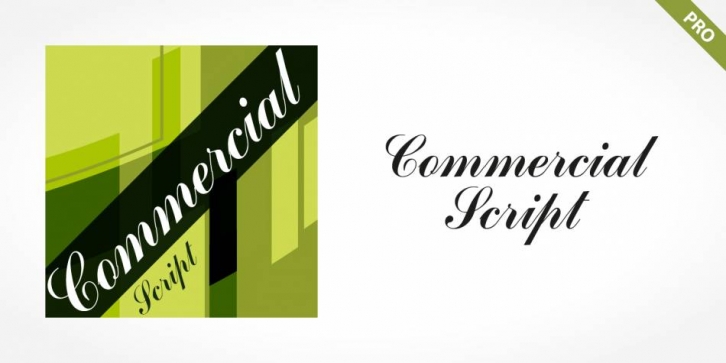
Commercial Script Pro is a script font published by SoftMaker.
Commercial Script is a sophisticated copperplate script design. Its capitals are elaborate initials, and the lowercase letters join together in the style of real handwriting. Commercial Script’s elegant refinement makes it a classic and ever-popular typeface.